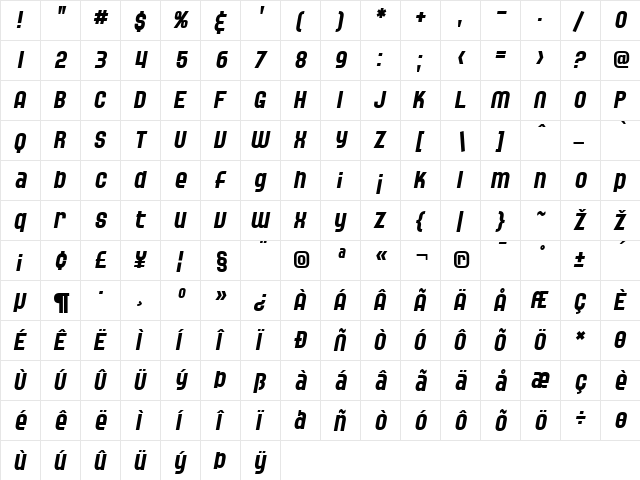
SF Speedwaystar Bold Italic
| Foundry | ShyFoundry |
| Designer | Derek Vogelpohl |
Design Context for SF Speedwaystar Typeface
SF Speedwaystar is a composed and adaptable typeface that performs quietly and consistently across a wide range of design contexts. Its italic angle brings a sense of urgency and motion to the letterforms. The heavy weight commands attention and anchors typographic hierarchies.
Pro Tip: Try SF Speedwaystar for annotation and caption copy alongside an upright companion — the contrast in angle creates a dynamic but ordered typographic system.